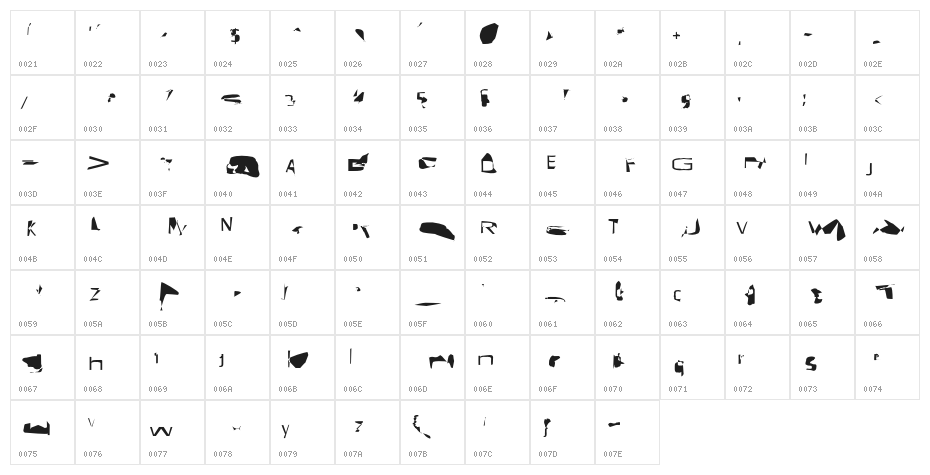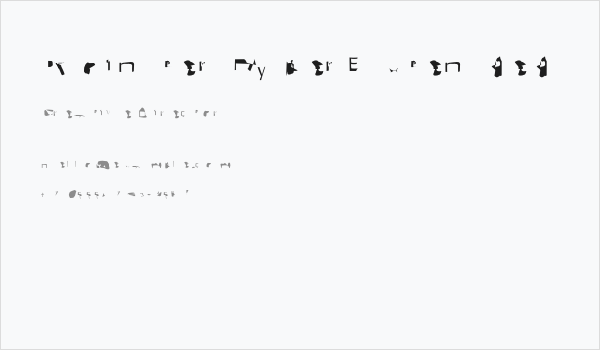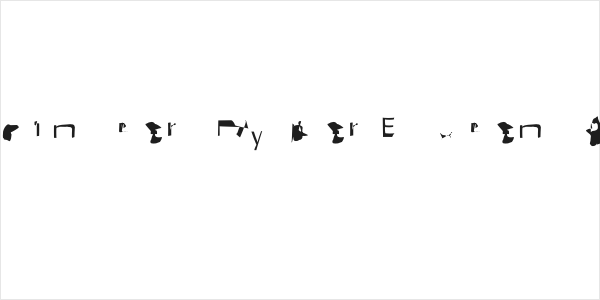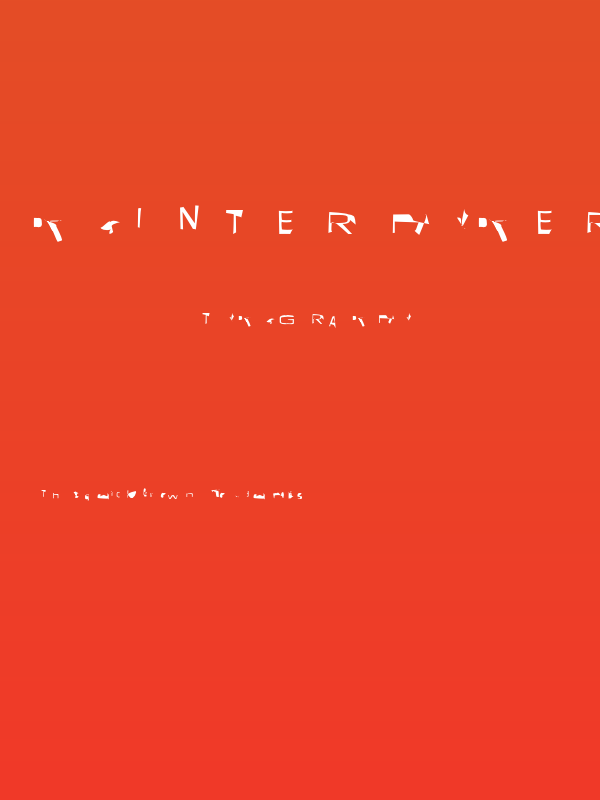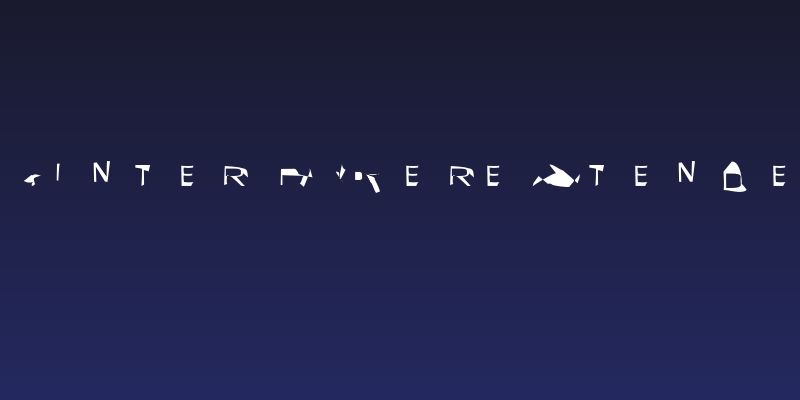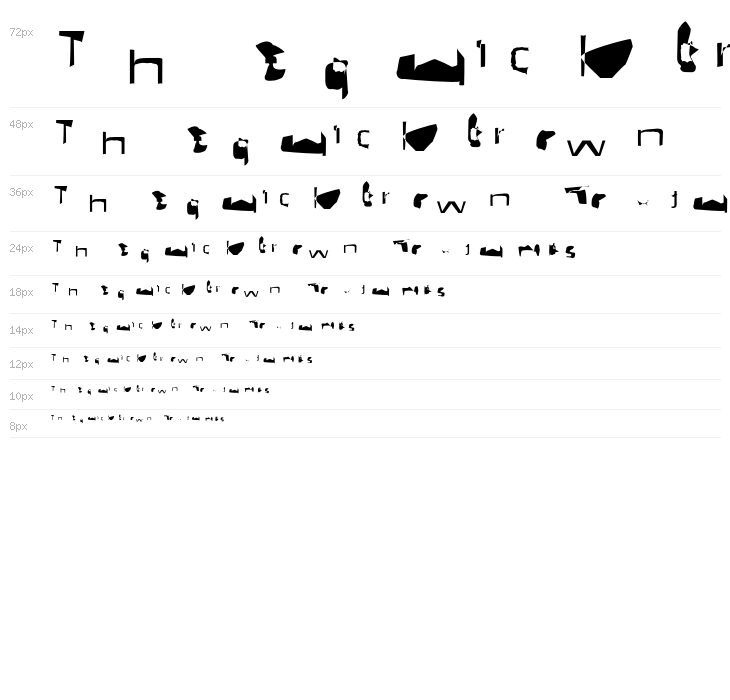
Pointer HyperExtended Font
Pointer HyperExtended Description
This font presents a highly abstract and fragmented design, characterized by its distorted and broken letterforms. Each character appears as if it has been shattered or deconstructed, creating a chaotic yet intriguing visual effect. The irregular shapes and varying line thicknesses contribute to its unique, avant-garde style. Despite its unconventional appearance, the font maintains a consistent baseline and general structure, allowing for legibility in short bursts. The overall aesthetic is bold and experimental, making it suitable for artistic and creative projects that aim to capture attention and convey a sense of disruption or innovation.
| Overall Style | Modern, Experimental |
| Use Case | Logos, Headlines, Artistic projects |
| Proposed Projects | Ideal for experimental art projects, edgy branding, album covers, and posters that require a striking and unconventional typeface. |